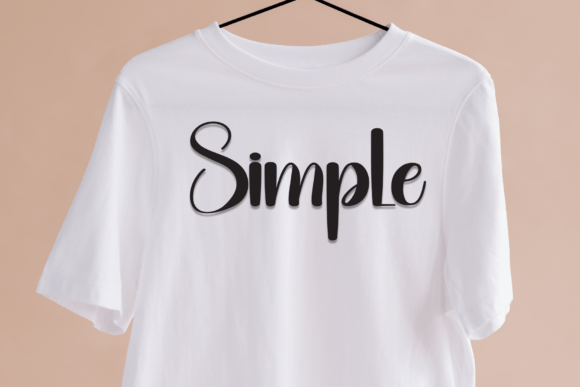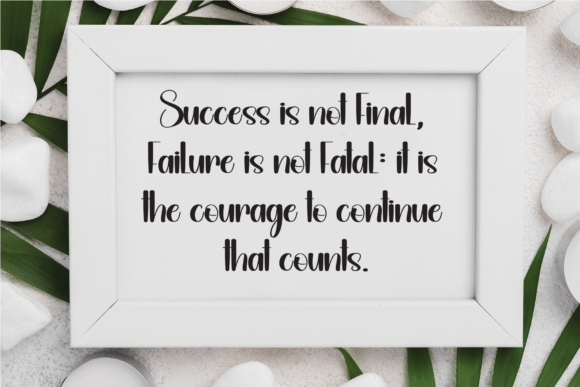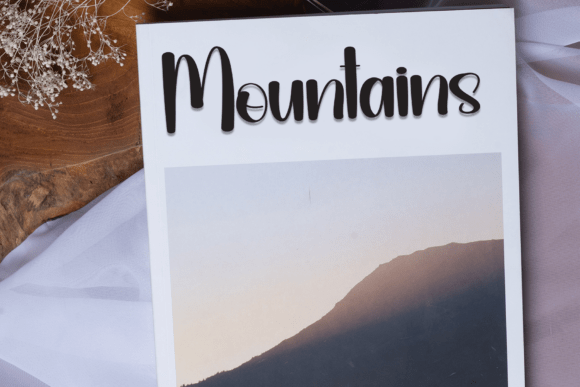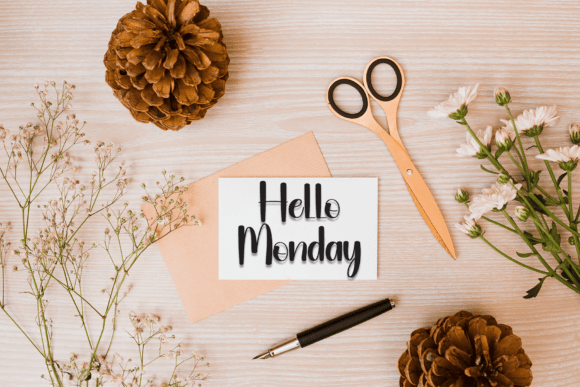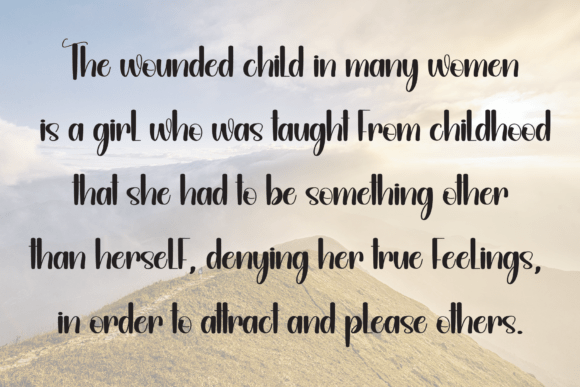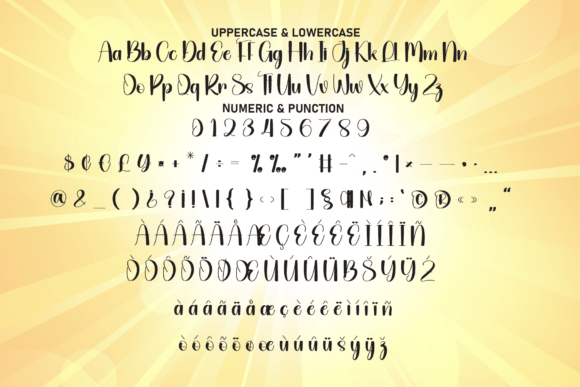
Introducing Happy Radiant Font: The Perfect Blend of Freshness and Friendliness
In the world of typography, fonts play a crucial role in conveying the tone and personality of a brand or design. For designers and crafters looking for a font that exudes a fresh, friendly vibe, Happy Radiant Font is an excellent choice. This casual and neat display font is designed to add a touch of approachability and charm to various projects, making it perfect for packaging, posters, social media graphics, and more.
Clean Lines and Relaxed Structure
One of the standout features of Happy Radiant Font is its clean lines and relaxed structure. The font’s design is characterized by simple, uncomplicated lines that give it a neat and organized appearance. This makes it easy to read and understand, even at smaller sizes. The relaxed structure of the font also adds to its friendly and approachable feel, making it perfect for designs that require a personal touch.
Happy Radiant Font is a versatile font that can be used in a wide range of design projects. Its fresh and friendly vibe makes it perfect for:
- Packaging: Add a touch of personality to your product packaging with Happy Radiant Font. Its clean lines and relaxed structure make it easy to read and understand, even on smaller packaging.
- Posters: Create eye-catching posters with Happy Radiant Font. Its bold and playful design makes it perfect for grabbing attention and conveying a message.
- Social Media Graphics: Use Happy Radiant Font to create engaging social media graphics that reflect your brand’s personality. Its friendly and approachable design makes it perfect for connecting with your audience.
Approachable Design with a Polished Appearance
Happy Radiant Font’s approachable design is one of its most distinctive features. The font’s clean lines and relaxed structure give it a polished appearance that is both charming and clear. This makes it perfect for designs that require a personal touch, without sacrificing professionalism. Whether you’re designing for a brand or a personal project, Happy Radiant Font is an excellent choice.
Why Choose Happy Radiant Font?
With so many fonts available, why choose Happy Radiant Font? Here are a few reasons:
- Unique Vibe: Happy Radiant Font has a unique and distinctive vibe that sets it apart from other fonts. Its fresh and friendly design makes it perfect for designs that require a personal touch.
- Versatility: Happy Radiant Font is a versatile font that can be used in a wide range of design projects, from packaging to social media graphics.
- Easy to Read: The font’s clean lines and relaxed structure make it easy to read and understand, even at smaller sizes.
In conclusion, Happy Radiant Font is an excellent choice for designers and crafters looking for a font that exudes a fresh, friendly vibe. Its clean lines, relaxed structure, and approachable design make it perfect for various design projects, from packaging to social media graphics. With its unique vibe, versatility, and ease of readability, Happy Radiant Font is a font that can elevate your designs and add a touch of personality to your projects.